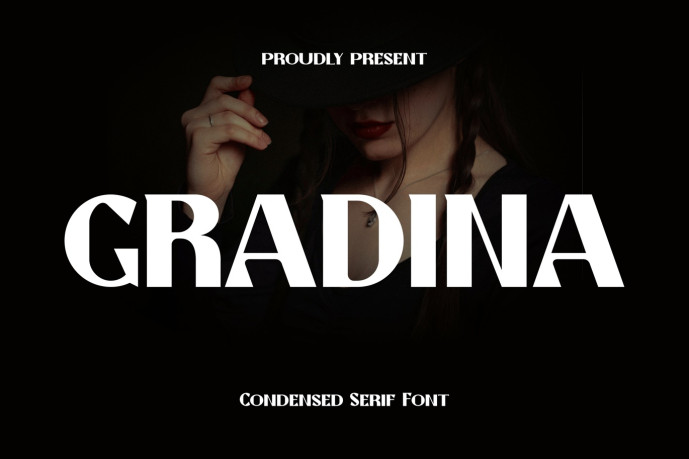
Gradina – Condensed Serif Font
Designer: maxhendra27
Gradina is a super thick typeface with more traditional letter shapes, making it perfect for creating (or recreating) the concise look of film poster production credits.
Feature :
Uppercase Characters
Lowercase Characters
Punctuation & Numbers